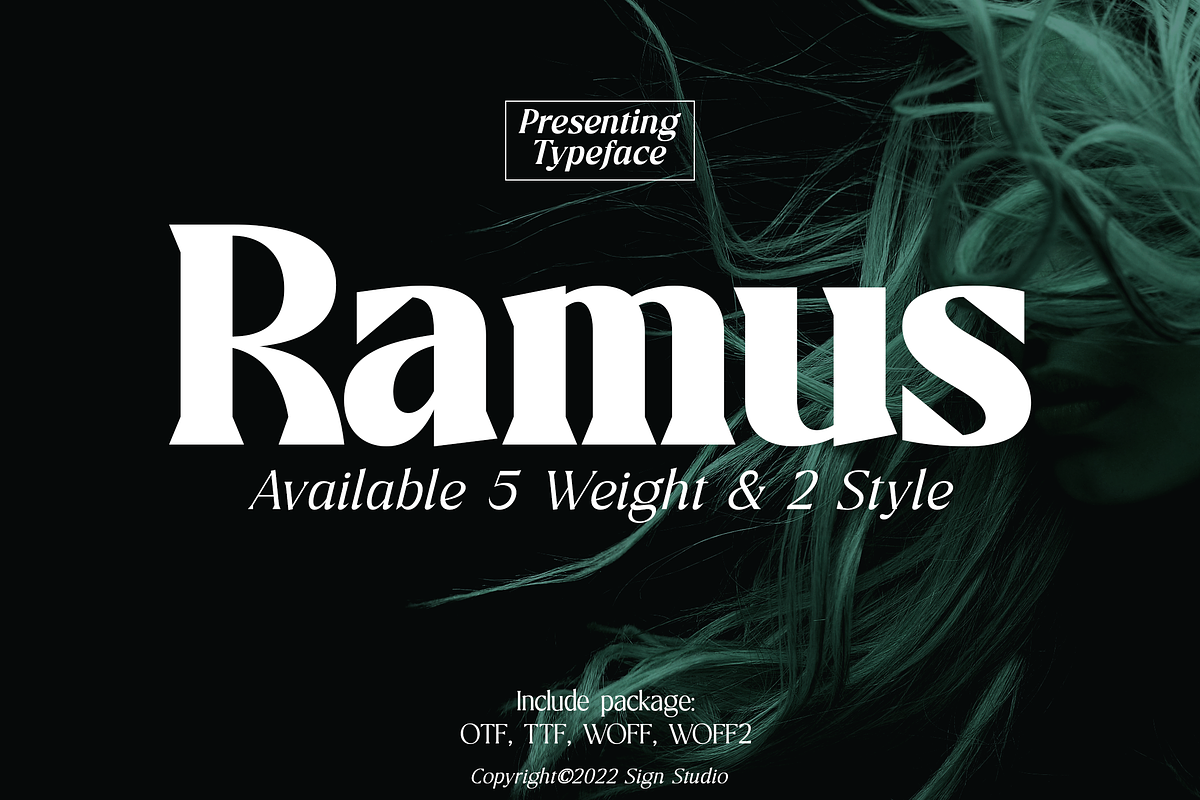
Ramus - Minimalist Classic Serif Font Free Download is a clean and elegant serif typeface that combines timeless design with a minimalist touch. Its balanced letterforms, refined serifs, and subtle curves make it perfect for both modern and traditional projects, such as logos, branding, editorial designs, websites, and print materials.
The sleek simplicity of Ramus allows it to work beautifully for both large headings and smaller body text. Whether you're creating a sophisticated brand identity, designing an elegant magazine layout, or developing professional marketing materials, this font delivers both style and readability.
Add elegance and timeless appeal to your designs with Ramus - Minimalist Classic Serif Font Free Download, and create sophisticated, professional typography that stands the test of time. Perfect for designers seeking a refined serif font with a minimalist edge.